The ability to use text with your Cricut is so important. After all, most of us will have a project that we want to apply the text to at some point! While Cricut does have some free fonts and paid, of course, there are times you may want to add your own. Adding your own fonts is super easy, but the question is, where do I find the best free fonts for Cricut?
Fonts are the magic glue that holds most designs together. Fonts have the power to invoke the overall feeling of a design, from jagged, sharp corners for a bold effect to soft curves or bubble typography for a sense of fun; choosing the right font pair or trio is sometimes overwhelming.
So here’s the thing: learning the art of mixing fonts takes some patience and rules of practice. Let’s cover the keys to success for the best font marriages.
How to Pair Fonts for SVG Designs
Before I list all of my favorite fonts, let’s chat about how to match and pair fonts so the design works well together. We’ve all done it: purchase or download a ton of gorgeous font designs but then we get stumped on what fonts pair well together. There are a few rules of picking a match made in font heaven for a synergistic design.
When Pairing Fonts Go Easy on the Variety
Simple is always superior to busyness. If you go too crazy with mixing more than 2 or 3 complimenting fonts, the chaos of the design will confuse the feeling you are trying to invoke in the viewer.
Pair Fonts with Opposite Styles
Opposites attract – this is true for fonts, too! Mix your font counterparts for a complementary duo. Statement novelty headline fonts like this Sorinka playful print, pair best with thinner scripted fonts like this Apple Butter skinny font.
Highlight a Word with Your Font Choice
Pick a focus word/point. Choosing a piece of the phrase or a single word that you want the viewer’s eye drawn to – this will help you determine which font is best. Generally, thick script fonts or fun bold prints are best for focus words.
Best Free Fonts for Craft SVG Files with Cricut, Silhouette, and Inkscape
Lobster Font
Lauren
Pacifico
Remachine
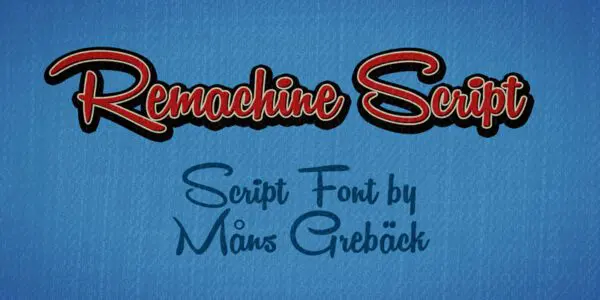
Milkshake
Watermelon
Passengers
Star Strella
Prestige Signature Script
My Sunshine
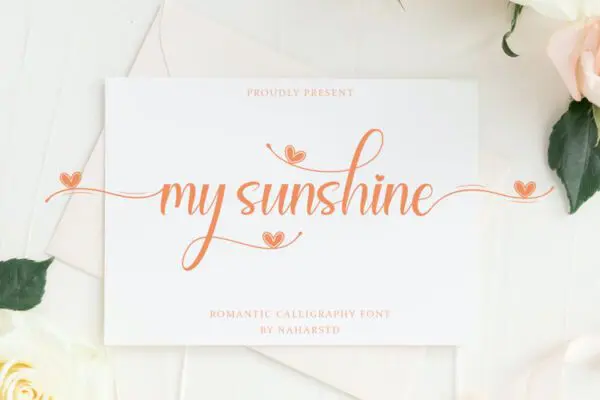
The Best Paid Fonts for Designing in Cricut or Inkscape
Simplicity
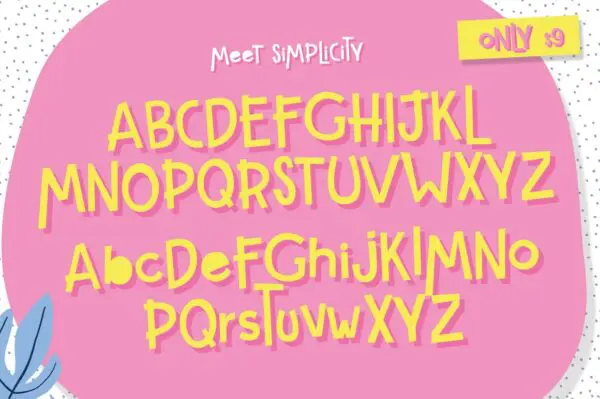
Zooky Squash
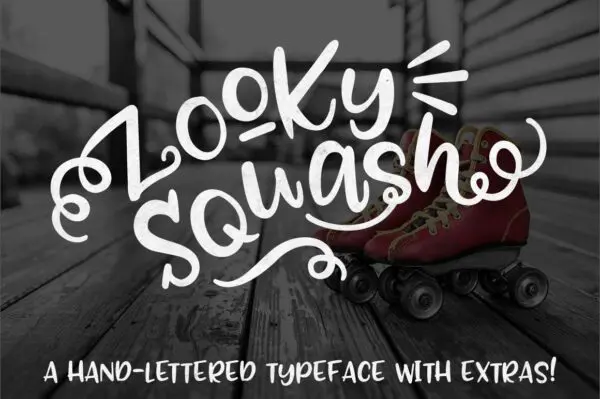
Cherry Cordial
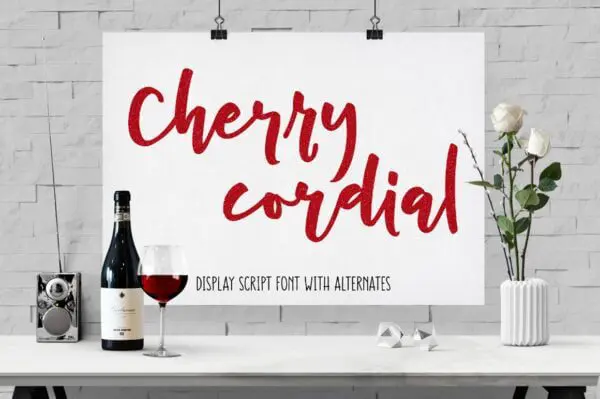
Tingler
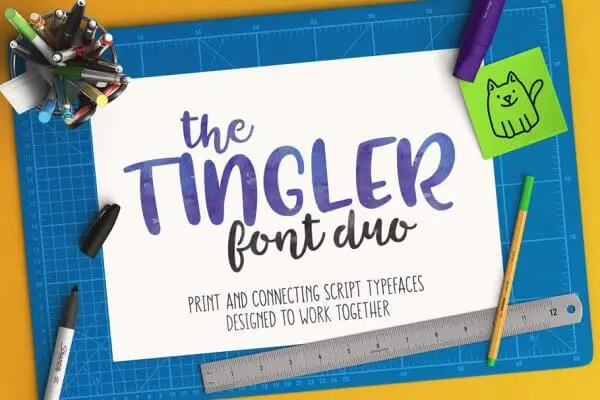
Breaking Bread
Chunky Taffy
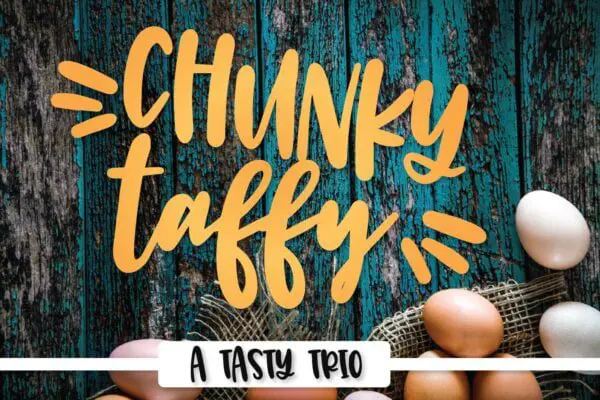
Cookies
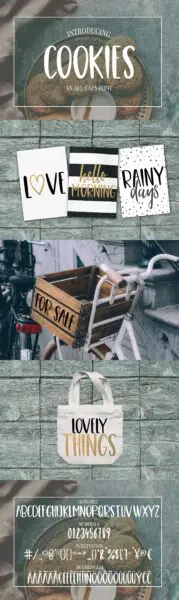
Sweet Mia
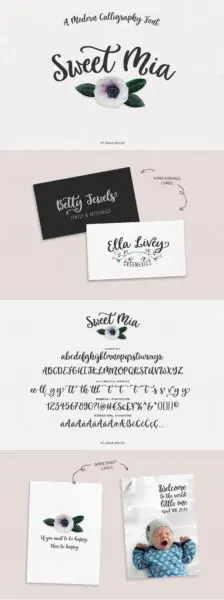
Sookie
Chin Up Buttercup
Monogram Font
Mermaid Tails
Sunny Beach
Puckery Tart
California Dreamer
Calligrapher Bundle
Sangria
Ever After
Sophistica
Melony
Alberto Stencil
Starlight
Just Hello
Carolina
Amastery
Forever Summer